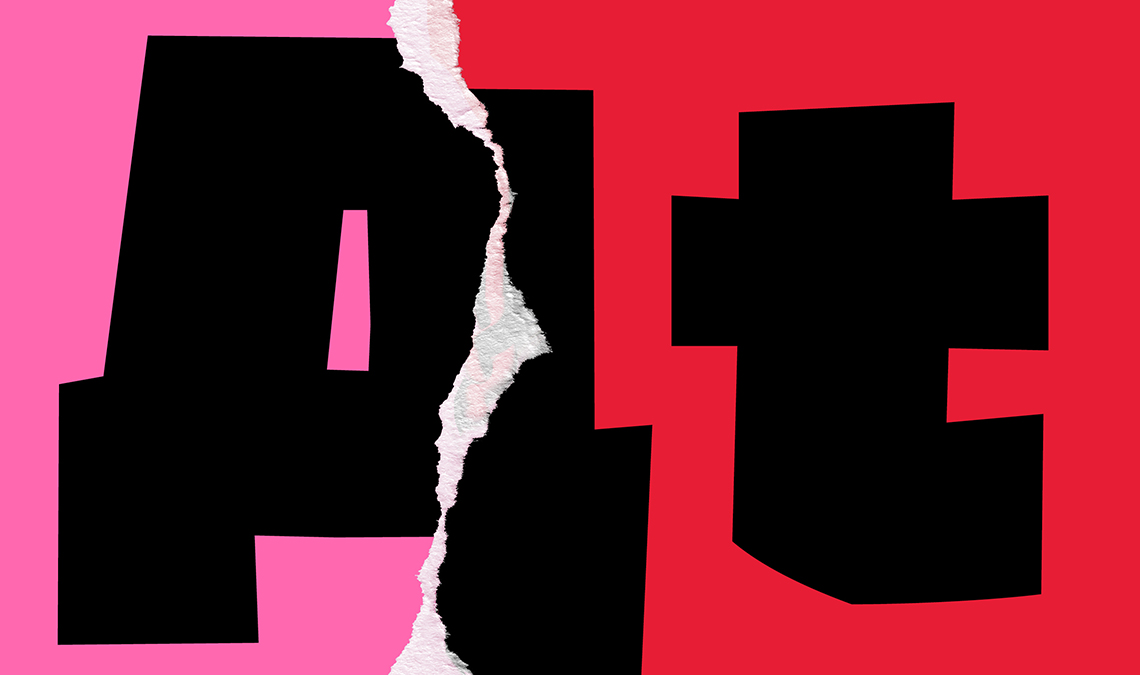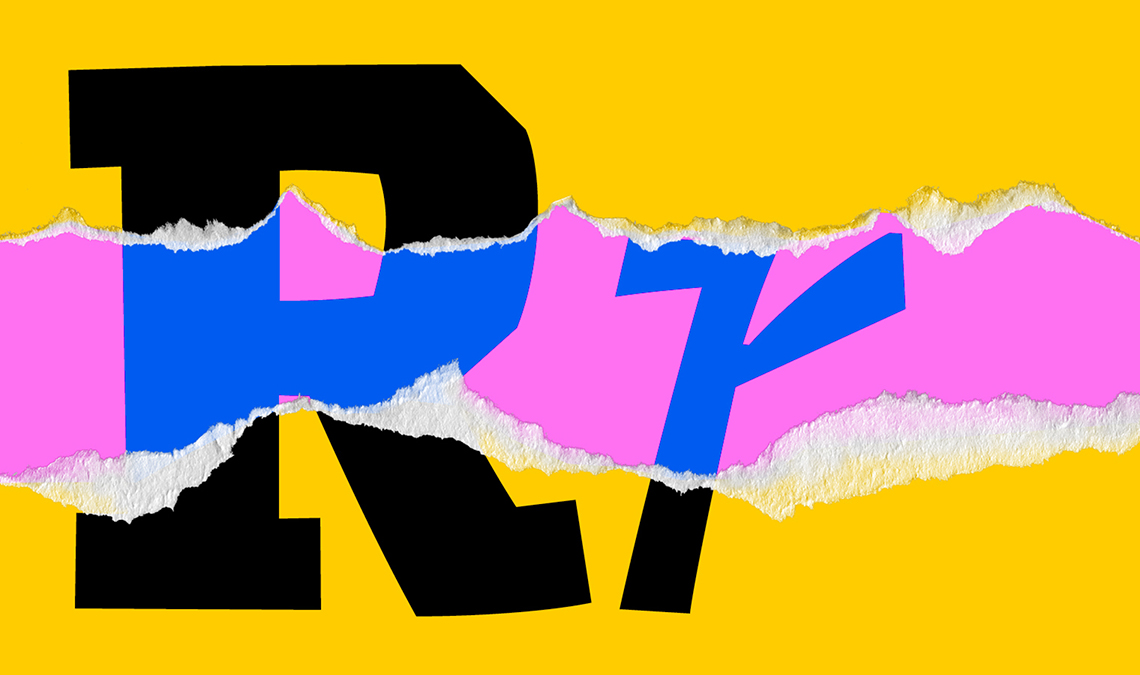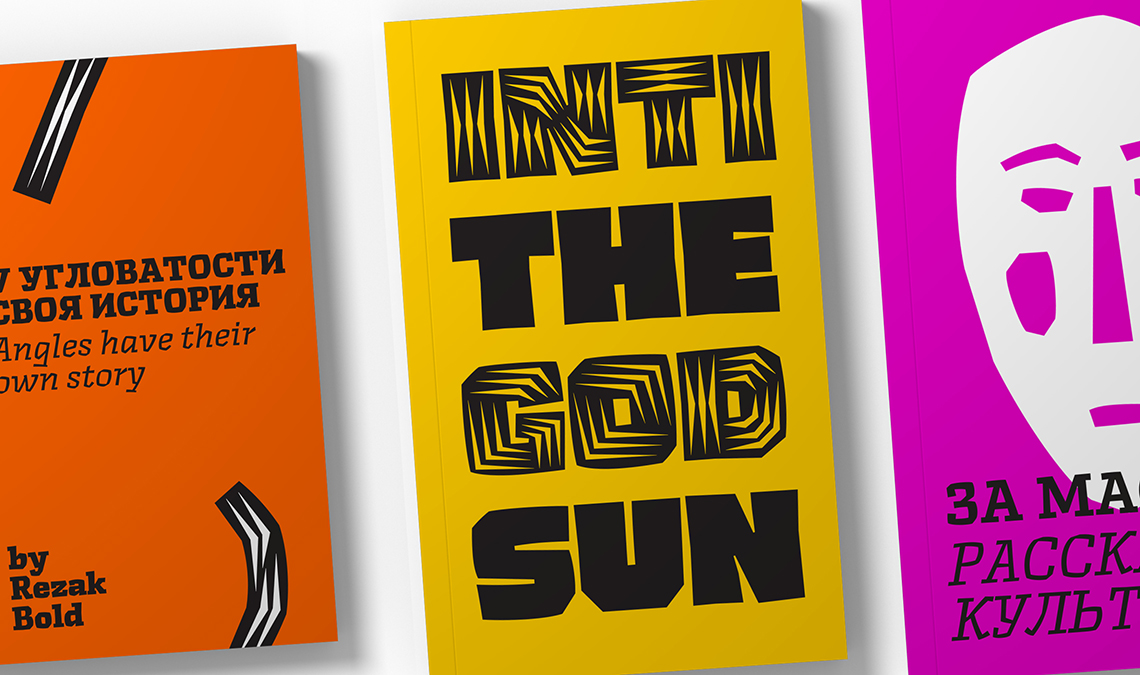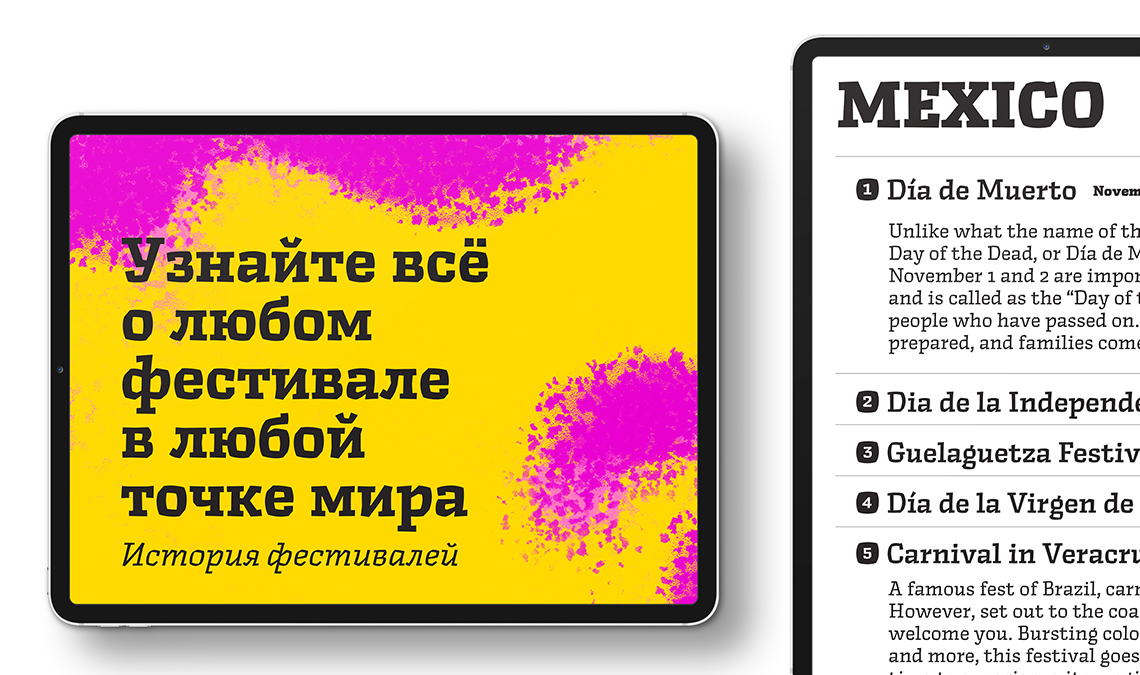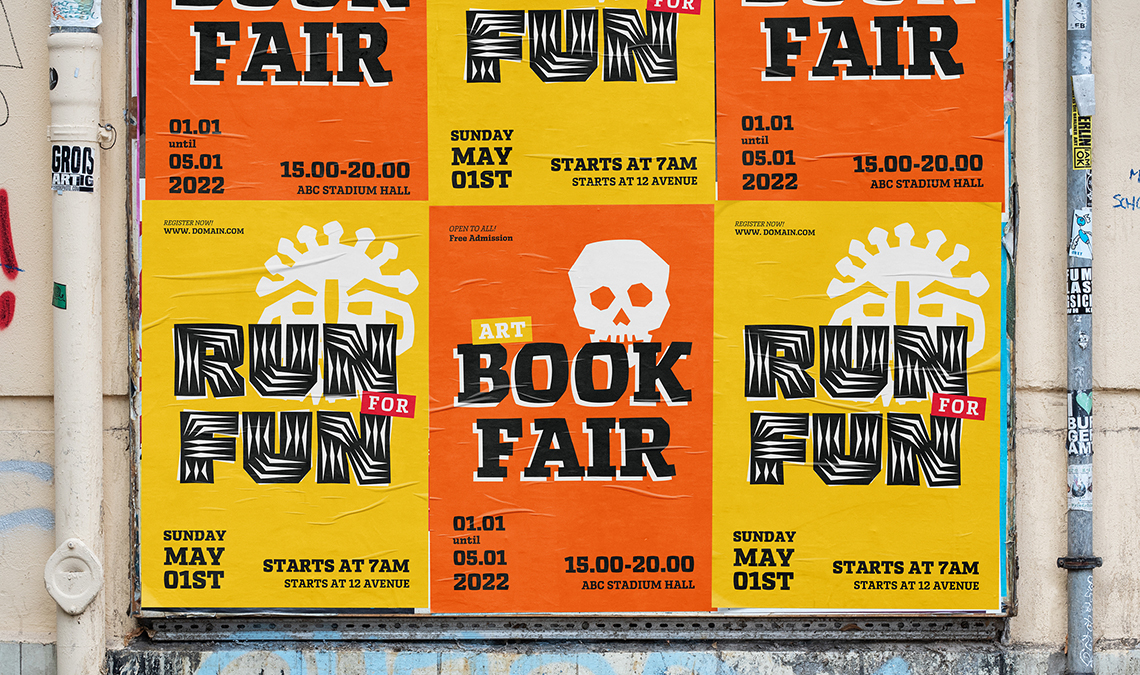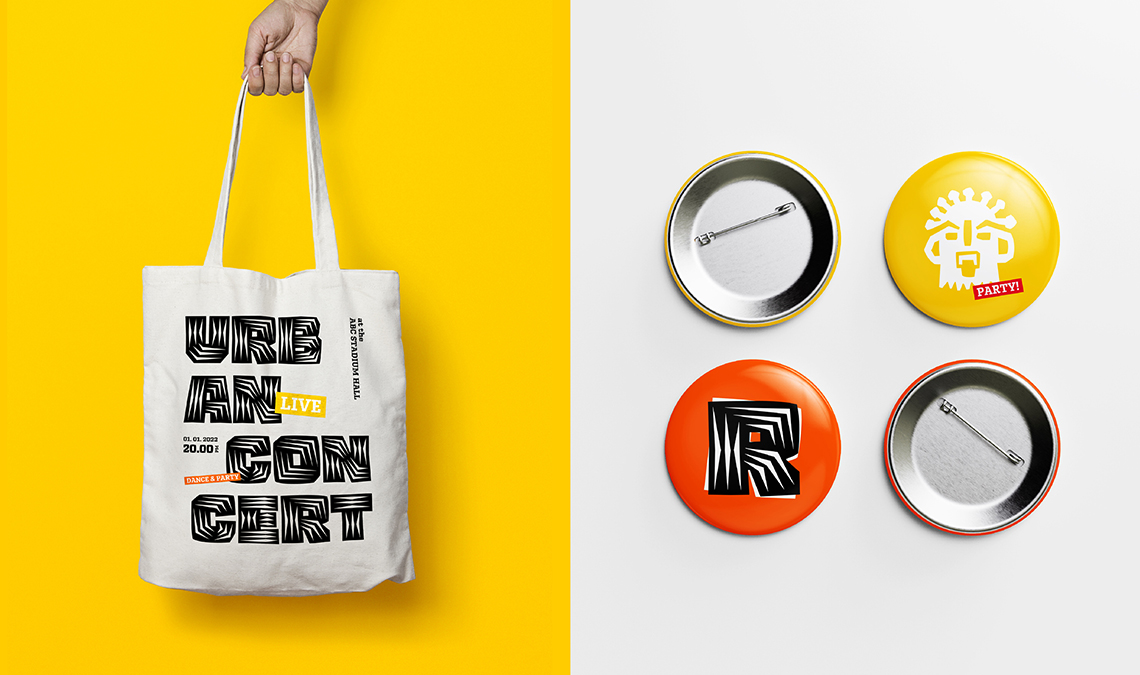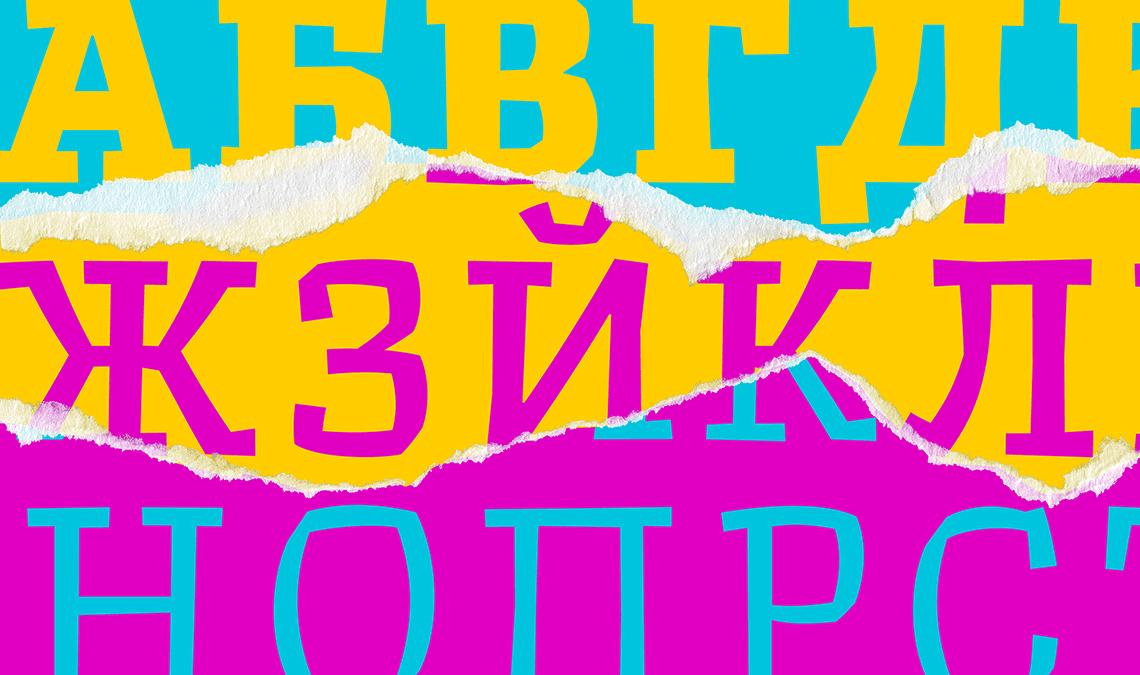
New release: Rezak
Say hello to Anya Danilova’s Rezak font family, a jaunty and daring Latin and Cyrillic typeface that includes an incised version and icons — a full-fledged design for logotypes, packaging, movies, children’s books, and gaming.
Nothing is hidden in the simplistic forms and overt aesthetic of Anya Danilova’s Rezak font family. Rezak is not a type family directly from the digital world, but was inspired by the stout presence of cutting letters out of tangible material: paper, stone, and wood. With only a few cuts, the shapes remain dark and simple. With more cuts, the shapes become lighter and more defined, resulting in a dynamic type family not stuck within one specific category.
Rezak includes a total of ten styles: four weights and matching italics for text setting (Regular, Semibold, Bold and Extrabold), and the Black and Incised display styles. All ten styles cover two scripts, Latin and Cyrillic.
Anya Danilova won the 2020 Gerard Unger Scholarship for her Rezak typeface. On the occasion of Rezak’s release, we wanted to highlight the interview in which we discuss Anya’s design history and working together versus working alone, you can read it here.